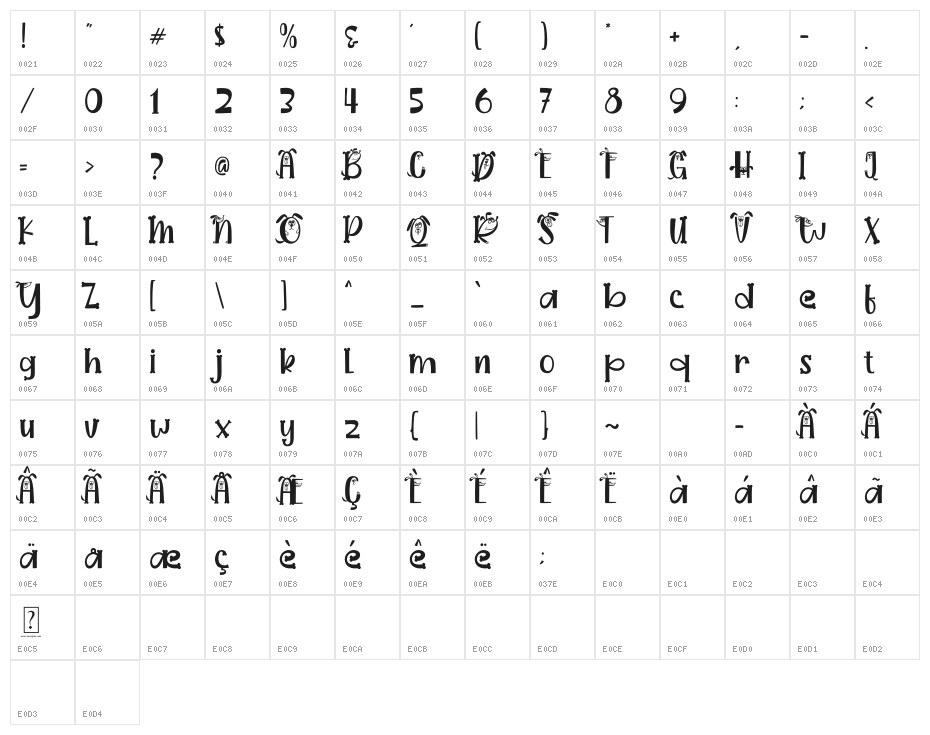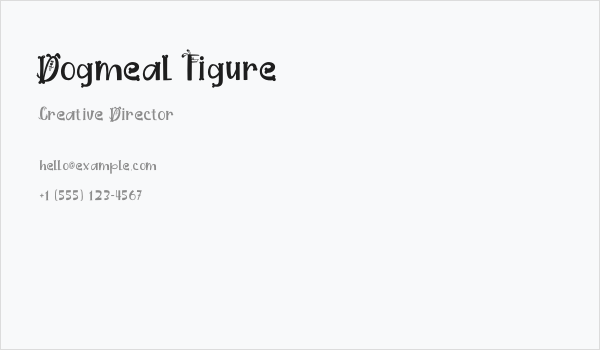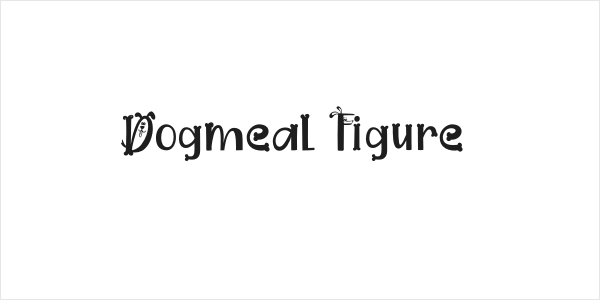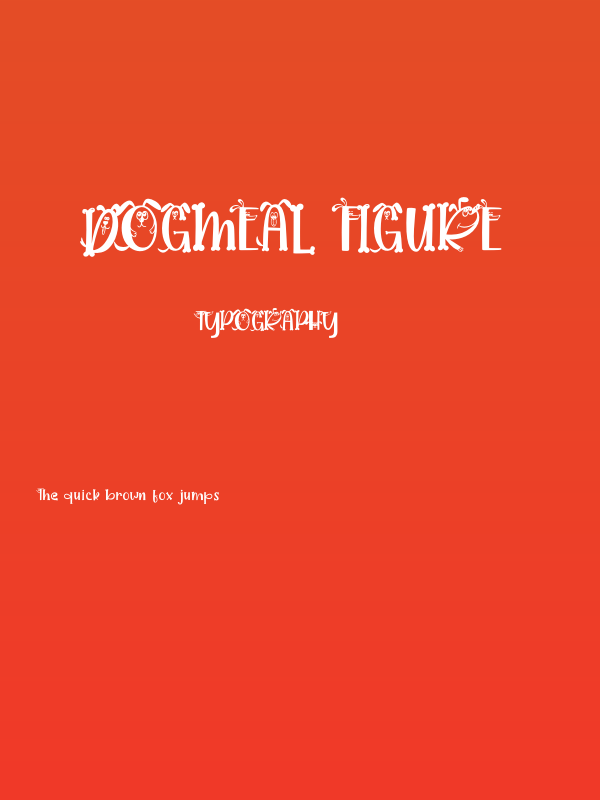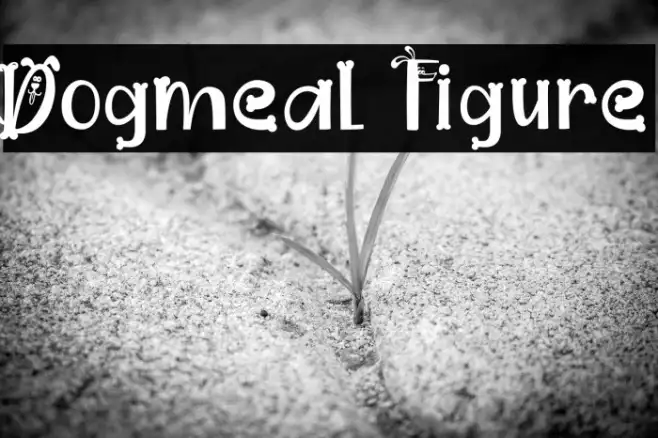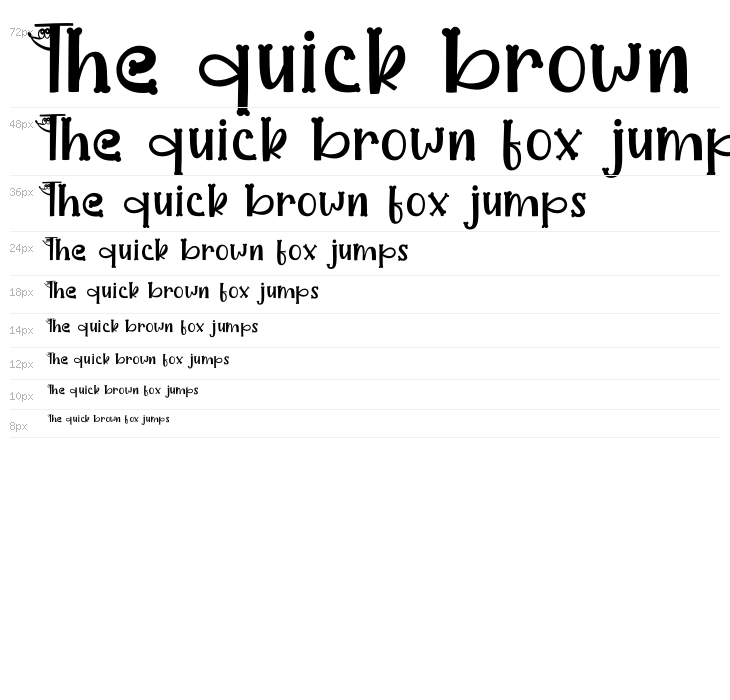
Dogmeal Figure Font
Dogmeal Figure Description
This whimsical and playful font features unique decorative elements that resemble cartoonish dog faces integrated into the letterforms. The uppercase letters are bold and quirky, with exaggerated serifs and playful embellishments. The lowercase letters maintain a consistent style, with rounded edges and a friendly appearance. Numbers are bold and easily readable, while special characters carry the same playful theme. This font is perfect for projects that require a fun and lighthearted touch, such as children's books, playful branding, or creative posters.
DOGMEAL-FIGURE UPPERCASE
DOGMEAL-FIGURE LOWERCASE
DOGMEAL-FIGURE OTHER CHARS
| Proposed Projects | Ideal for children's books, playful branding, creative posters, and fun invitations. |